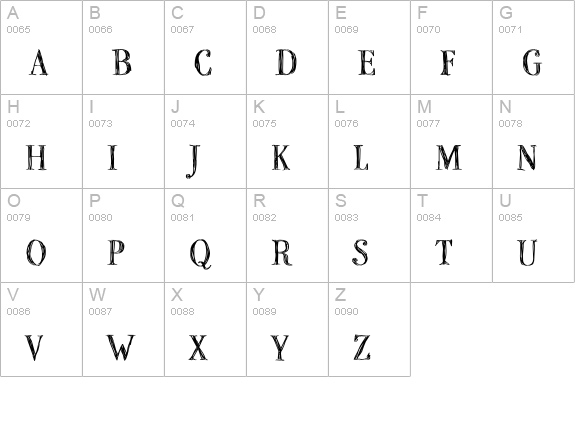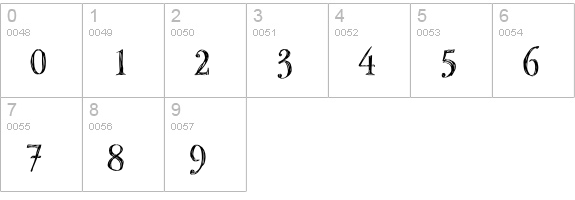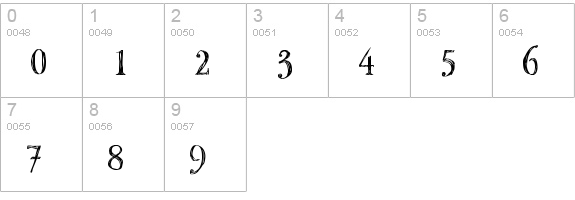
P22StanyanRegular Font Details
P22StanyanRegular font is an exquisite creation that effortlessly combines elegance and modernity. With its clean lines and refined curves, this font is perfect for any design project that requires a touch of sophistication. The P22StanyanRegular font is a versatile typeface that can be used in a multitude of contexts, from branding and logo design to editorial layouts and web design. Its legibility and readability make it an ideal choice for both large headings and body text. What sets this font apart is its superior craftsmanship and attention to detail. Each character is meticulously crafted, resulting in a harmonious and balanced typeface that exudes professionalism and quality. But what makes P22StanyanRegular font truly special is that it is freely available to download at FontsMarket.com. This means that designers and creatives can access this exceptional font without any cost, making it an invaluable resource for those on a tight budget or simply looking for high-quality typography. So whether you're working on a personal project or a professional assignment, P22StanyanRegular font is the perfect choice. Its timeless beauty and stylish aesthetics will elevate your designs and leave a lasting impression on your audience. Don't miss the opportunity to enhance your creative endeavors with this remarkable font, readily available for free at FontsMarket.com.